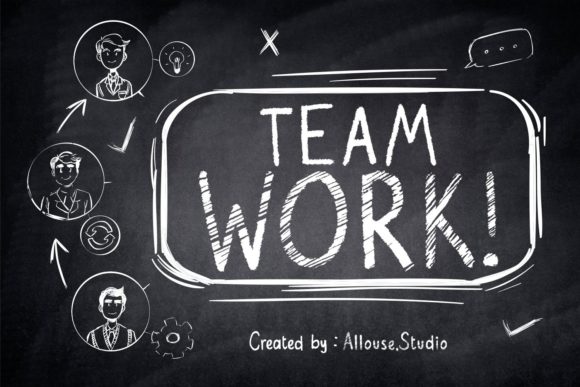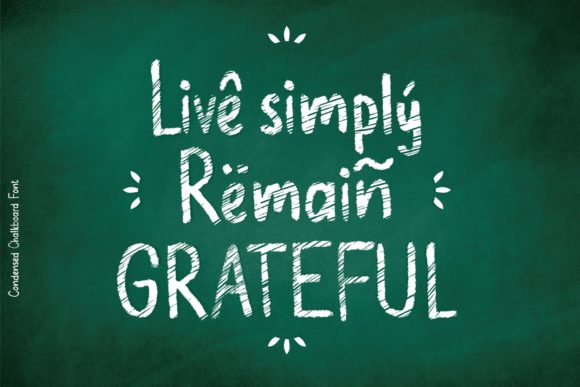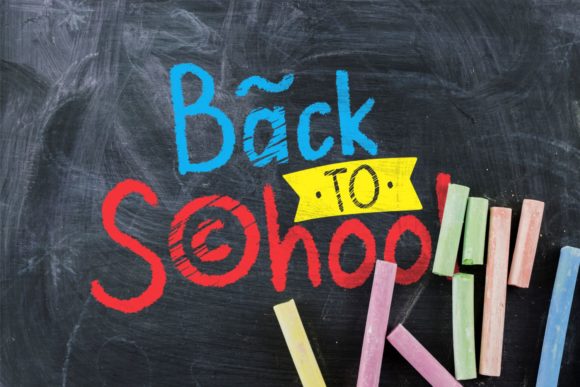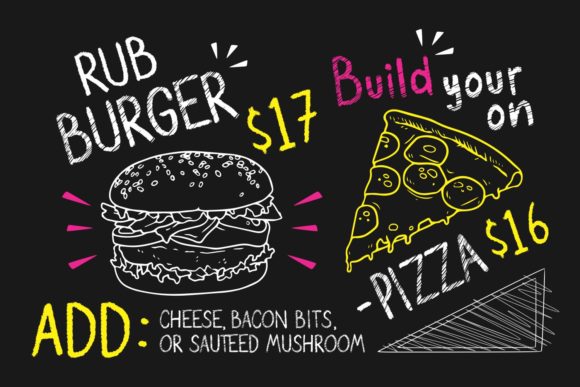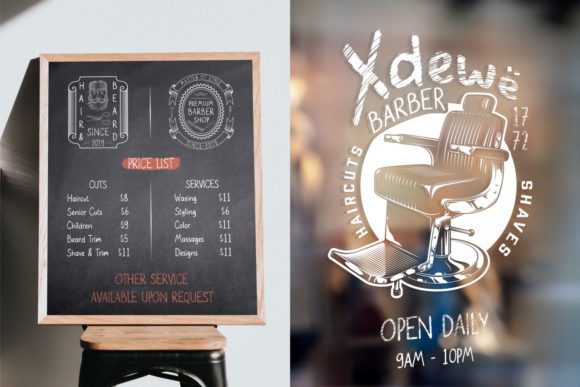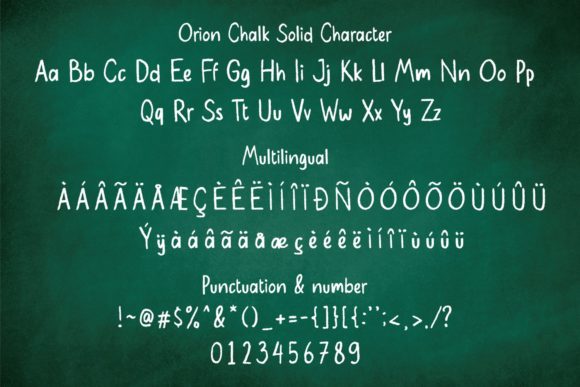
Introduction to Orion Chalk Font
Who hasn’t been there – staring at a blank page, trying to come up with the perfect design for a children’s project or a school assignment? As designers, we often find ourselves in this situation, searching for the right combination of style and functionality to make our creative project shine. And that’s exactly where the Orion Chalk Font comes in – a fun, simple, and incredibly catchy display font that embodies joy and authenticity.
Key Features of Orion Chalk Font
- High-quality, hand-drawn design suitable for various creative projects, including illustrations, graphics, and typography.
- Comes with a transparent background, allowing for easy customization and integration into different design elements.
- Font size: 128 glyphs, covering a wide range of characters, including Latin, Cyrillic, and Greek alphabets.
- High-resolution design, suitable for use in print and digital applications, including posters, flyers, and web graphics.
- Unique, distressed texture effect gives the font a distinctive, artistic feel, perfect for adding a touch of creativity to your projects.
Honest Review: Orion Chalk Font
Here’s what works well:
- ✨ Beautiful, hand-drawn illustrations that add a personal touch to any design
- ✨ A wide range of characters and symbols that make it perfect for creative projects
- ✨ Transparent background, making it easy to layer over any design
- ⚠️ The font is not ideal for formal or professional projects, as it has a more playful tone
- ⚠️ Some characters may not be compatible with older versions of software or operating systems
Tips for Getting the Most Out of Orion Chalk Font
Use Orion Chalk Font in conjunction with other design elements to create a cohesive look. Experiment with different font sizes, colors, and styles to find the perfect combination for your project.
Orion Chalk Font is perfect for creative projects such as invitations, social media graphics, and branding materials. Its high-quality design and transparent background make it an ideal choice for designers looking for a versatile font.